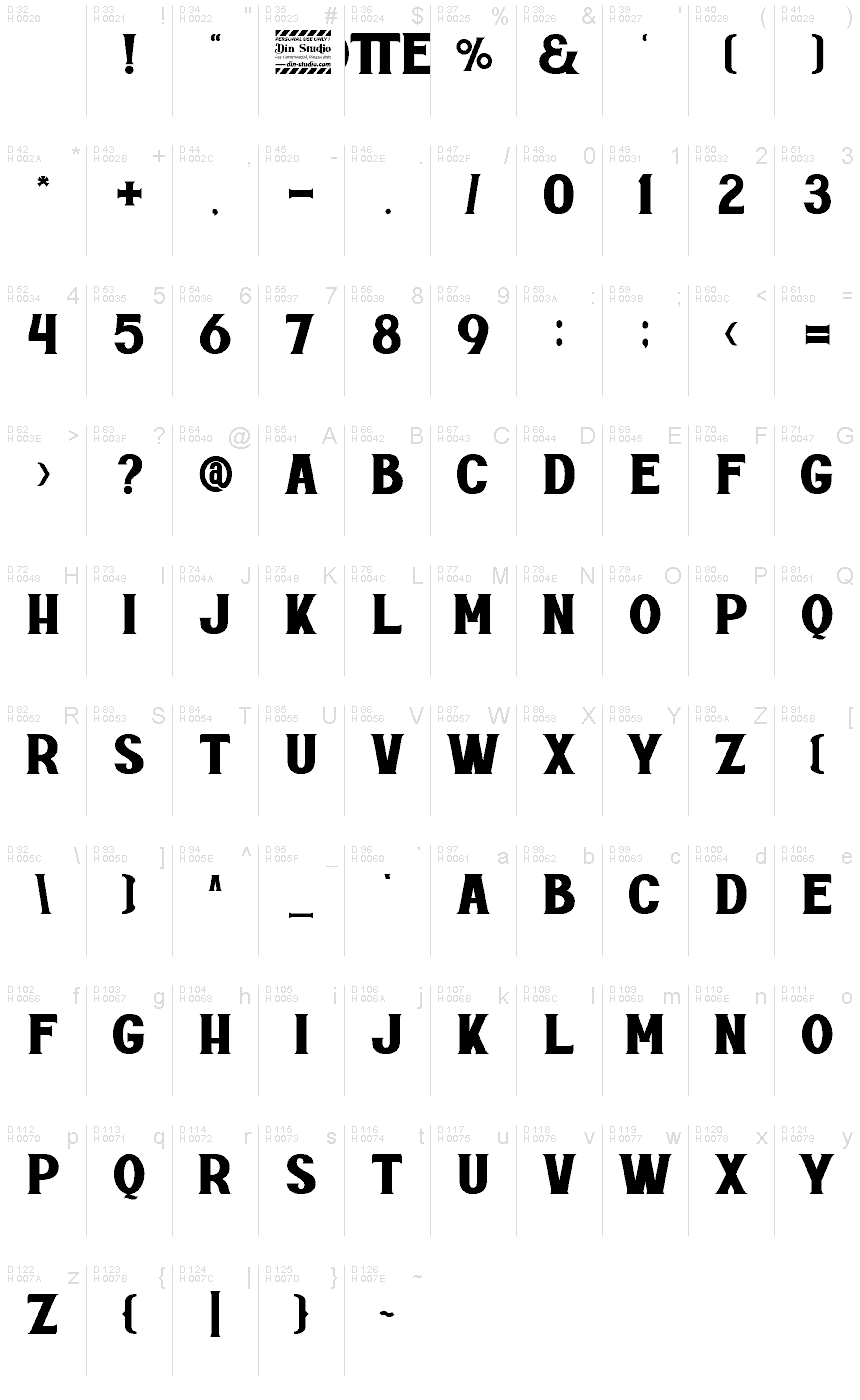
Rottely Personal Use Only Reg
Rottely font by Din Studio is an elegant and sophisticated free serif font with a modern touch. This structured and authoritative typeface brings a powerful visual appeal to printed materials and digital screens, standing elegantly both small and large sized.
Use this font effectively for books, magazines, newspapers, editorial design projects (both print or online), branding, logos, packaging/covers design, labels/tags/wholesale tags design. Apply it further for uniform decorations (brand use).
Features include:
- Alternates
- Ligatures
- Multilingual Support
- PUA Encoded
- Numerals and Punctuations
- Bonus Ornaments